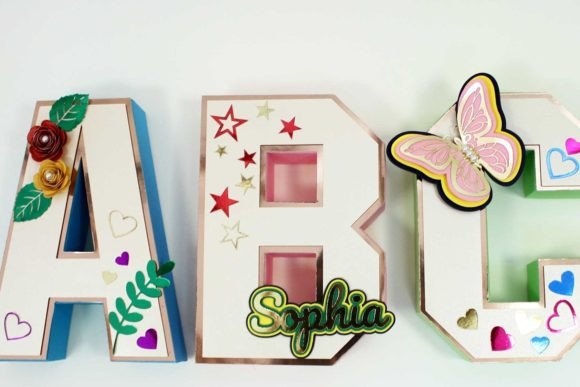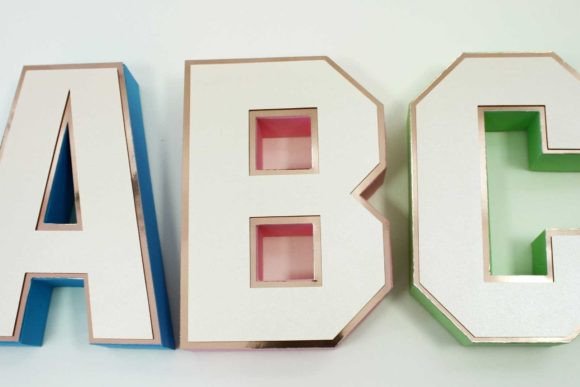
3D Letters and Numbers Template
About 3D Letters and Numbers Template
This 3D Letters and Numbers template is created by BMPvector.
The letters are easy to assemble and are perfect for baby names, baby showers, birthdays, and weddings.Decorate the letters (and numbers) with the elements you like the most to give them a personal touch!
Playing with papercrafts is something unique and different. The supplies (and skills) are readily available, and cheap and the results make a big impact.